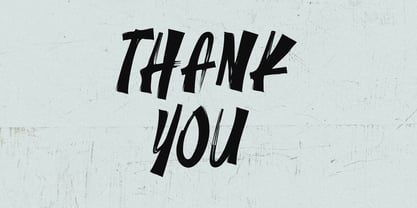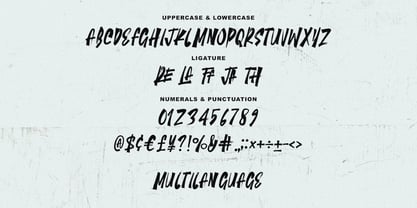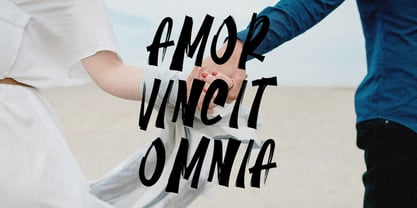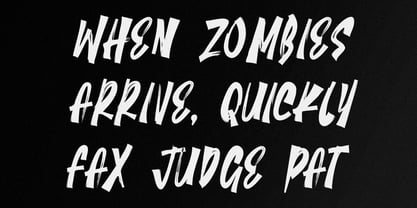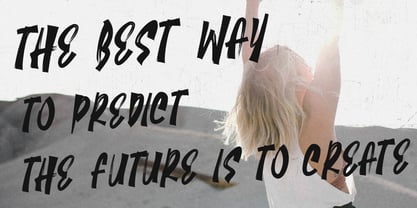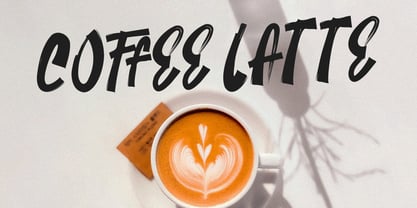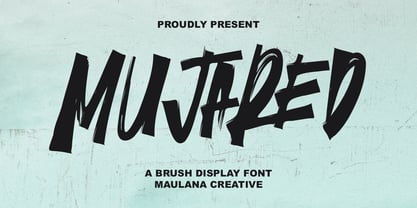
MC Mujared
por Maulana Creative
La familia tipográfica MC Mujared fue diseñada por Gilang Maulana y publicada por Maulana Creative. MC Mujared contiene 1 estilos. Más información sobre esta familia
Mujared is a brush display handwritten font. With bold stroke, fun character with a bit of ligatures. To give you an extra creative work. Mujared font support multilingual more than 100+ language. This font is good for logo design, Social media, Movie Titles, Books Titles, a short text even a long text letter and good for your secondary text font with sans or serif. Make a stunning work with Mujared font.
Diseñadores: Gilang Maulana
Fundición: Maulana Creative